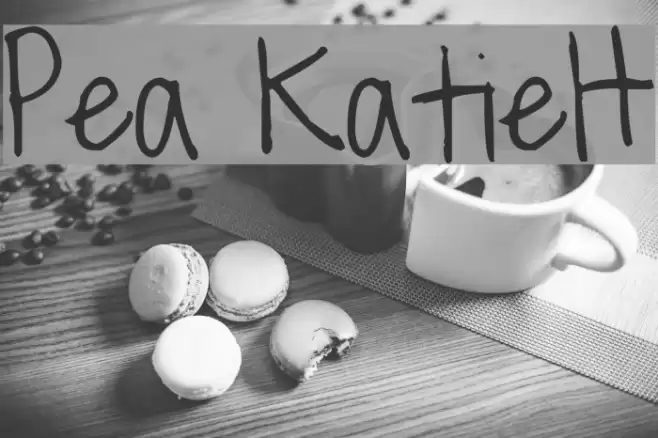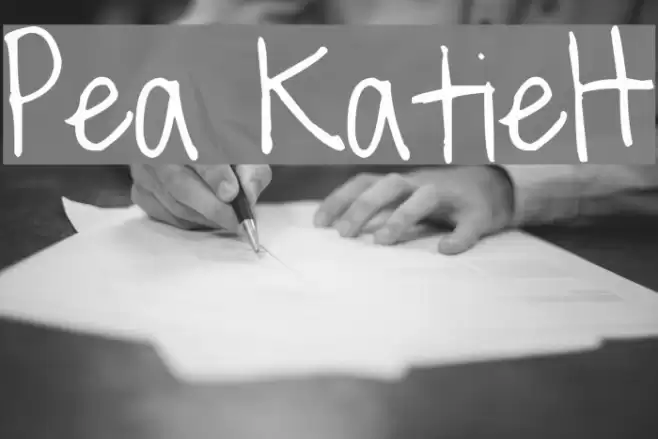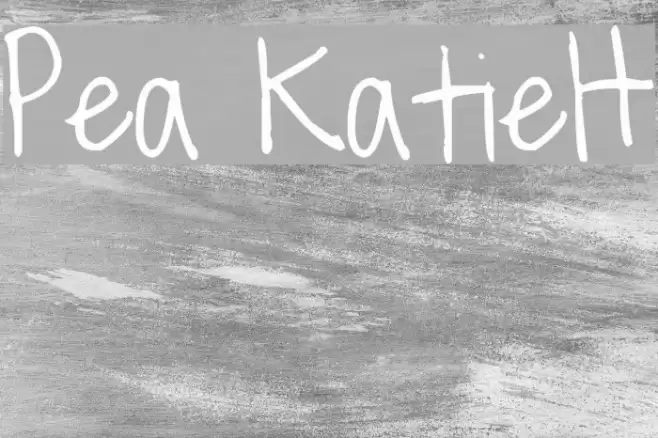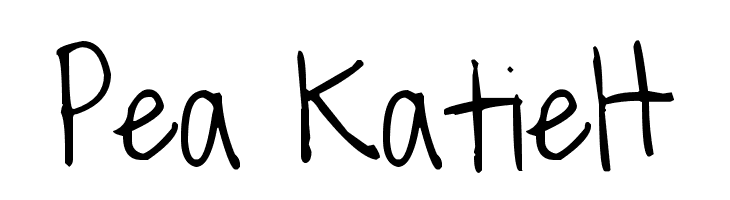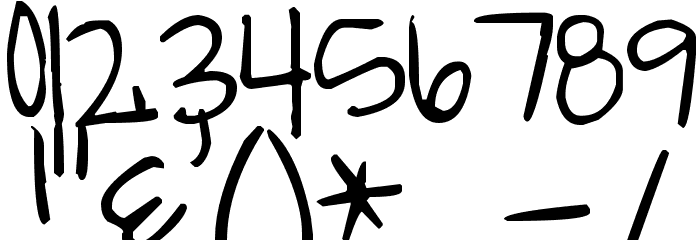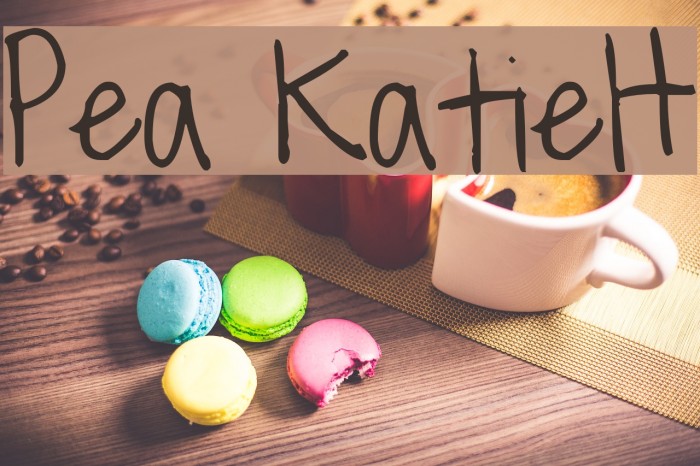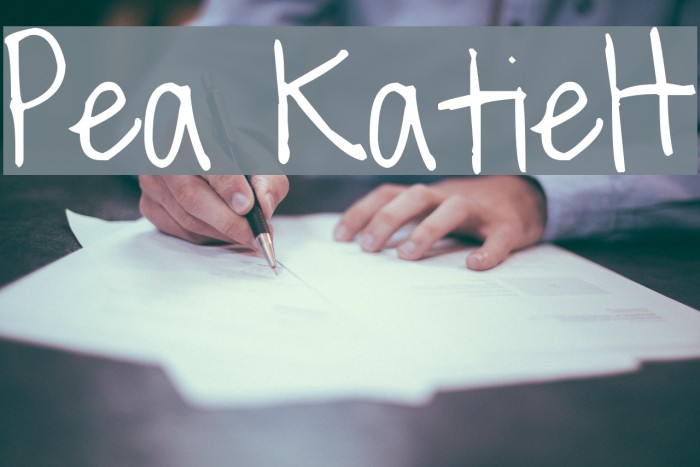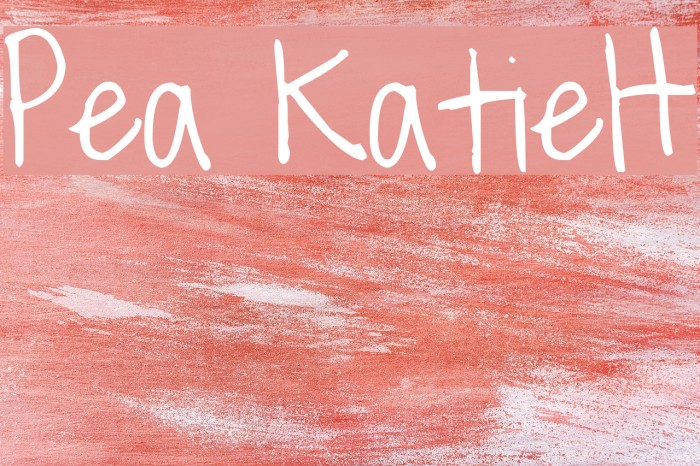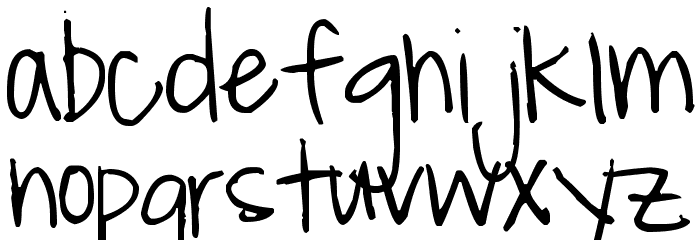
Pea KatieH Font
Pea KatieH Description
This font features a playful and casual handwritten style, characterized by its irregular and dynamic strokes. The letters are slightly slanted, giving a sense of movement and spontaneity. The uppercase and lowercase letters maintain a consistent flow, with rounded edges and varying line thickness that adds to its informal charm. Numbers and special characters follow the same whimsical design, making it suitable for projects that require a personal touch. The overall appearance is friendly and approachable, ideal for creative and informal contexts.
A playful, handwritten font with dynamic strokes and a casual style from Uncategorized fonts.
- Proposed Projects: Ideal for greeting cards, personal blogs, children's books, and informal invitations.
- Overall Style: Casual, Playful
- Use Case: Headlines, Informal text, Creative projects